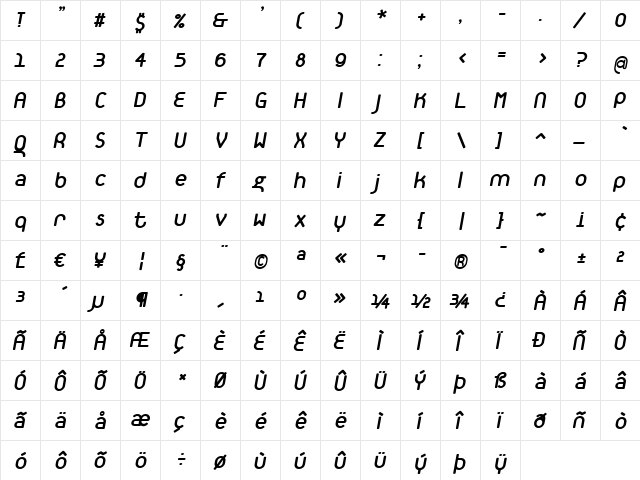
TantalusAlternativeBoldItalic Regular Font Preview
Design Context for TantalusAlternativeBoldItalic Typeface
TantalusAlternativeBoldItalic takes a measured approach to typography — its balanced proportions and neutral character make it a reliable workhorse for both digital and print work. The slanted form adds forward momentum and visual energy. Its bold stroke weight gives it real presence on the page.
Pro Tip: Try TantalusAlternativeBoldItalic for annotation and caption copy alongside an upright companion — the contrast in angle creates a dynamic but ordered typographic system.